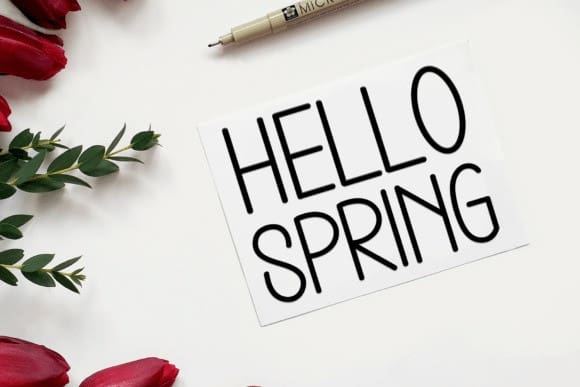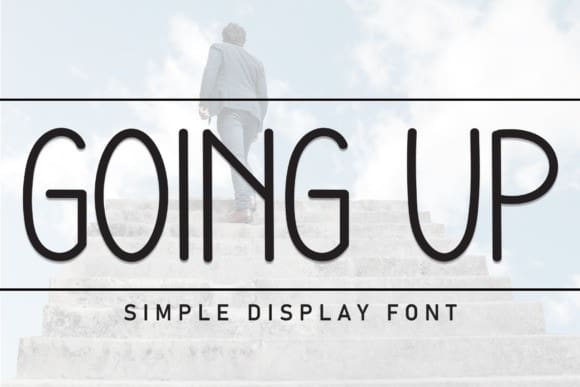
Going Up Font
Going Up Font is a sweet and friendly handwritten font. Fresh and casual, this font is ideal for writing wedding invitations, cards, or any other design that might need a lovely touch.